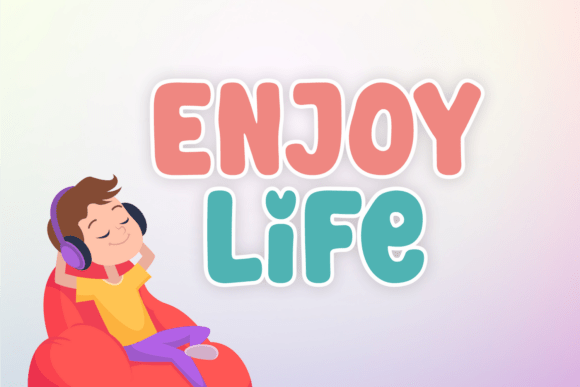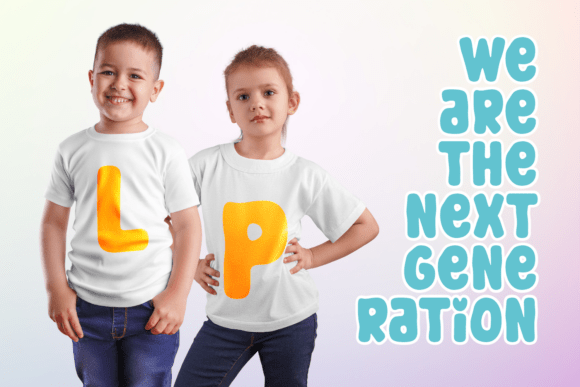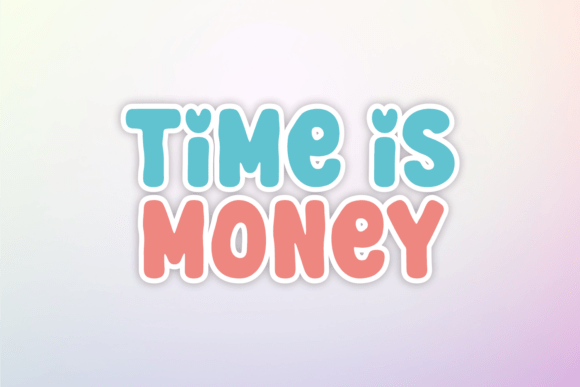
Introducing Mona Bona, a distinctively crafted font where every curve and corner is thoughtfully designed with a handwritten and rounded finish.
Boasting a bold yet tastefully pleasing aesthetic, Mona Bona effectively breathes life into your creative endeavors, infusing an interesting dimension to your design narrative Whether it’s fashioning striking apparel design, reimagining photography themes, creating captivating movie titles, or embellishing any other thematic design, Mona Bona seamlessly adapts, ensuring your work stands out in its striking glory.